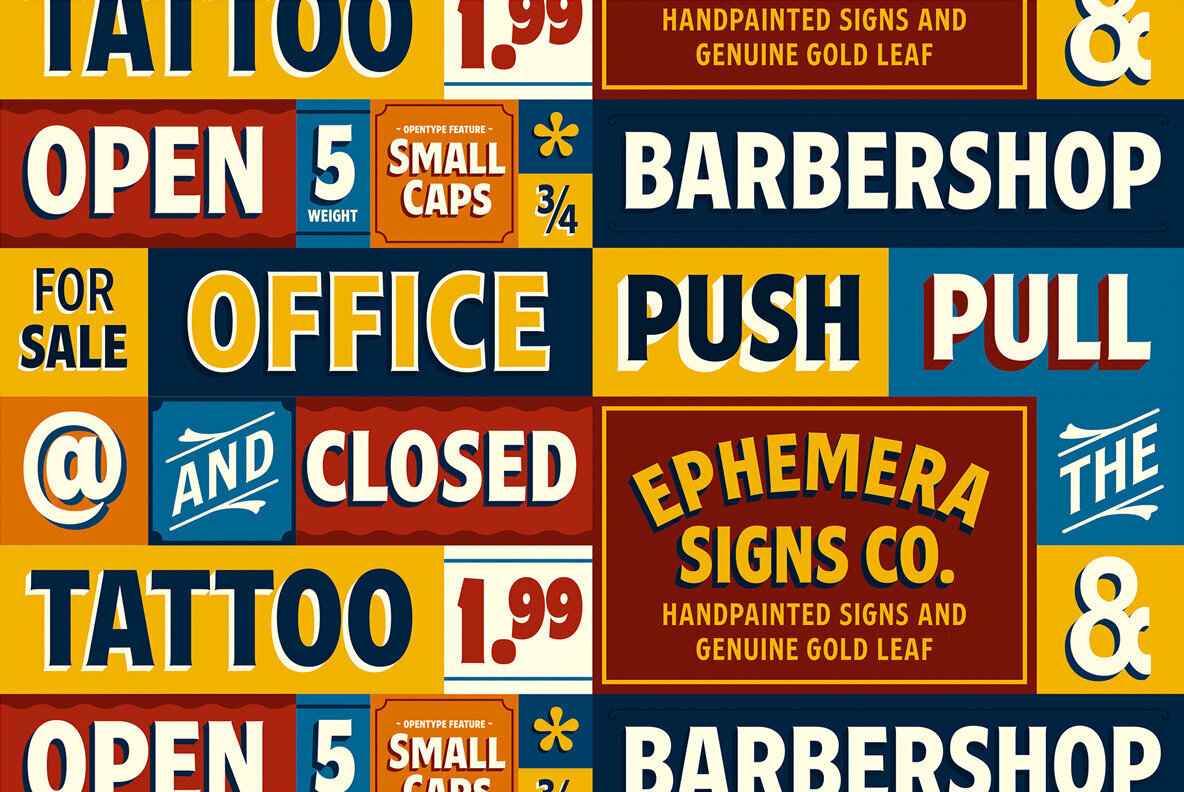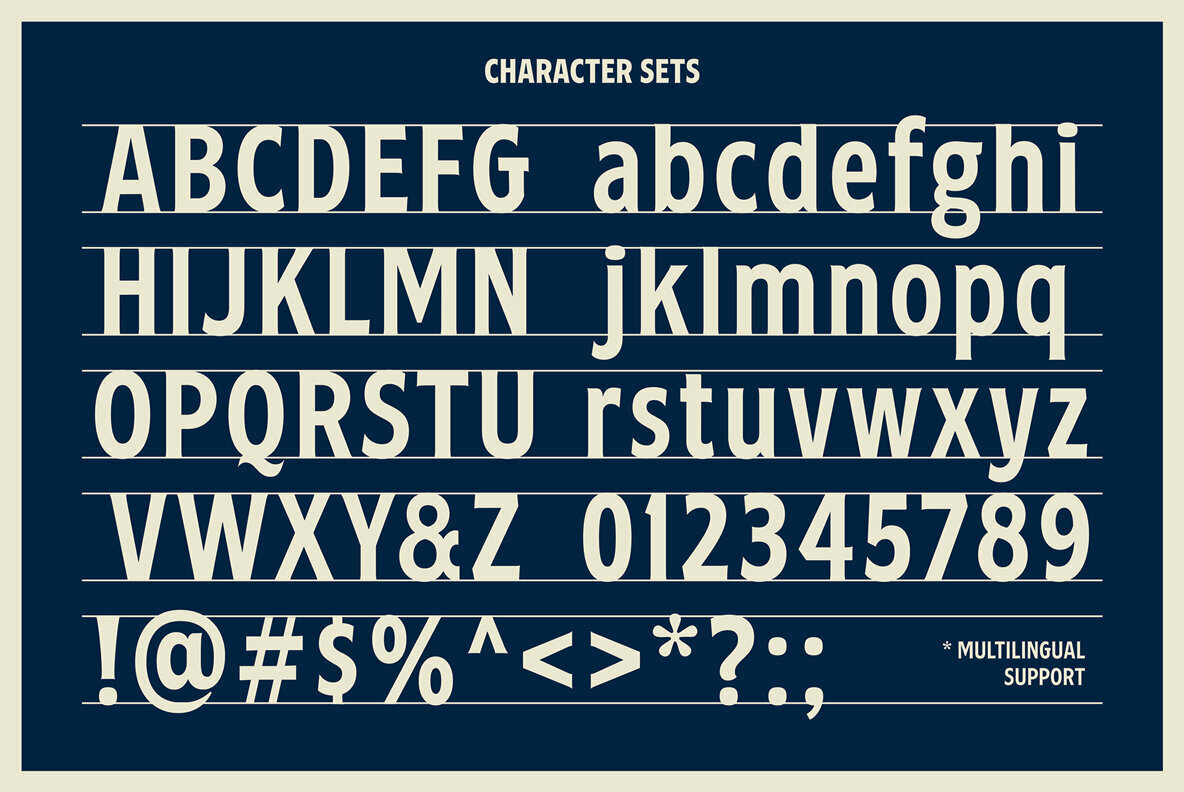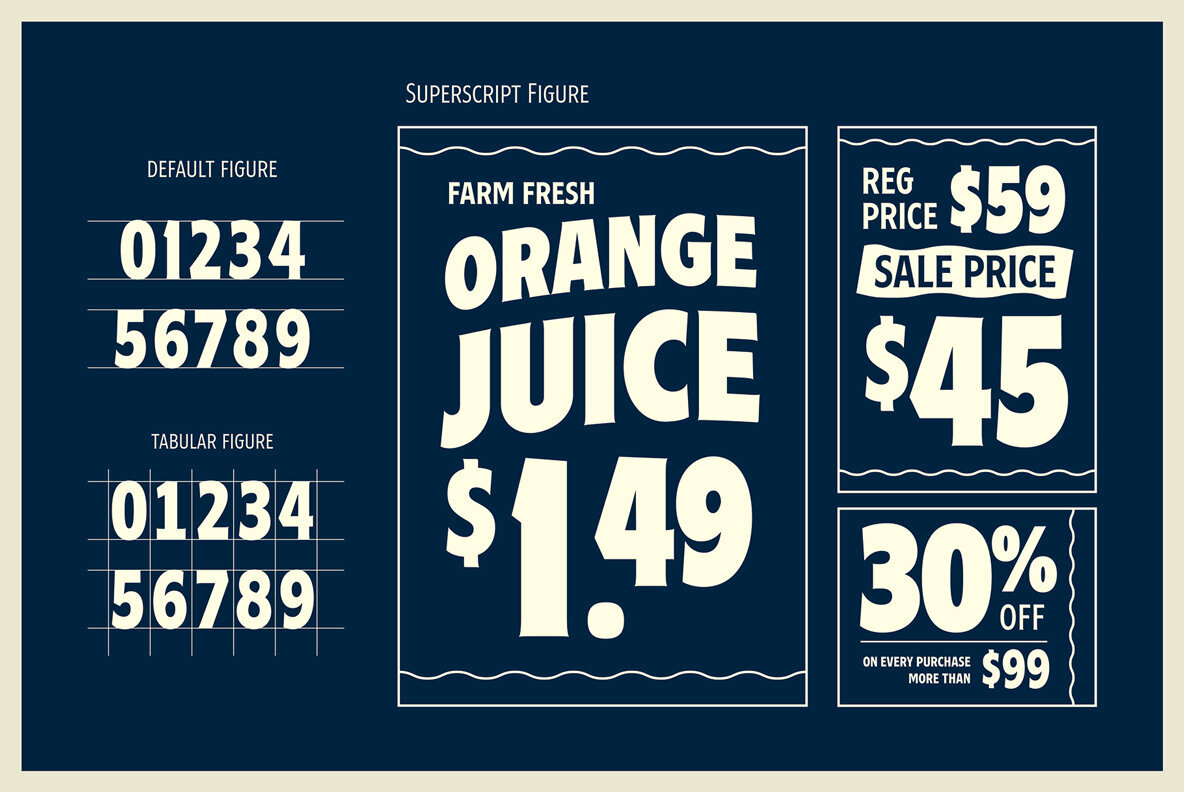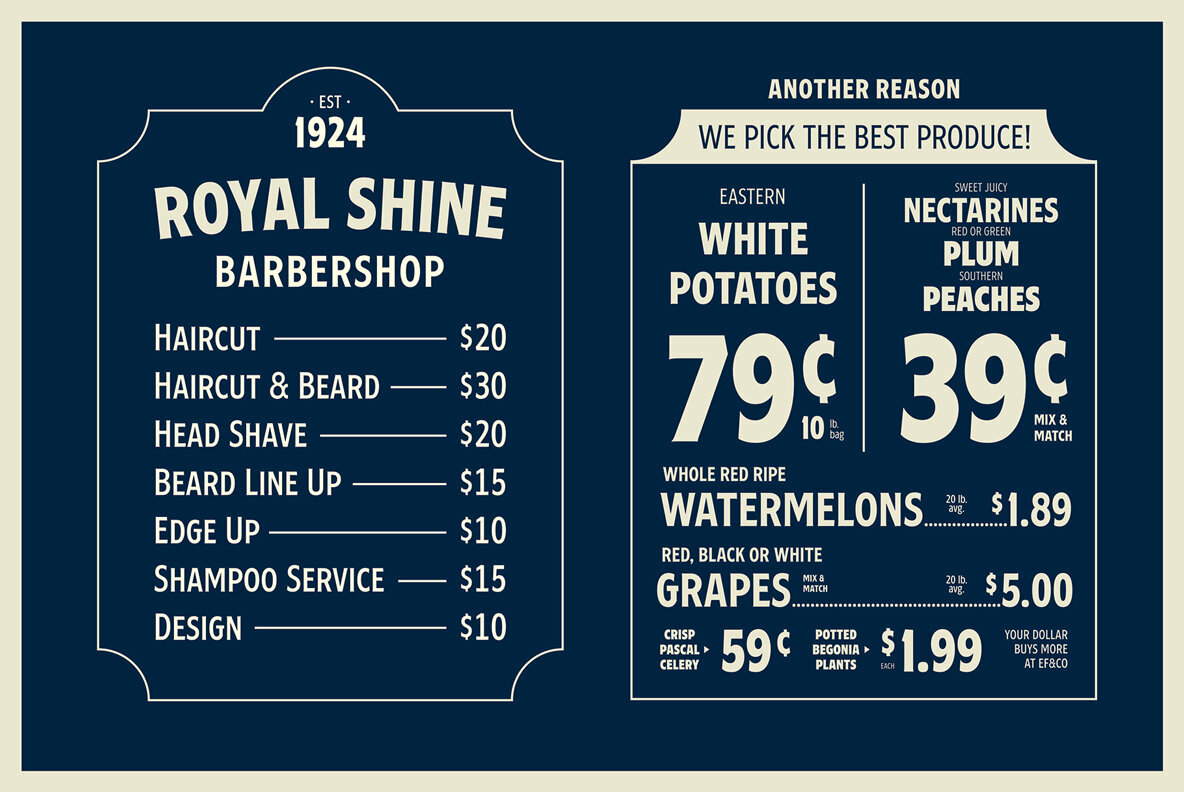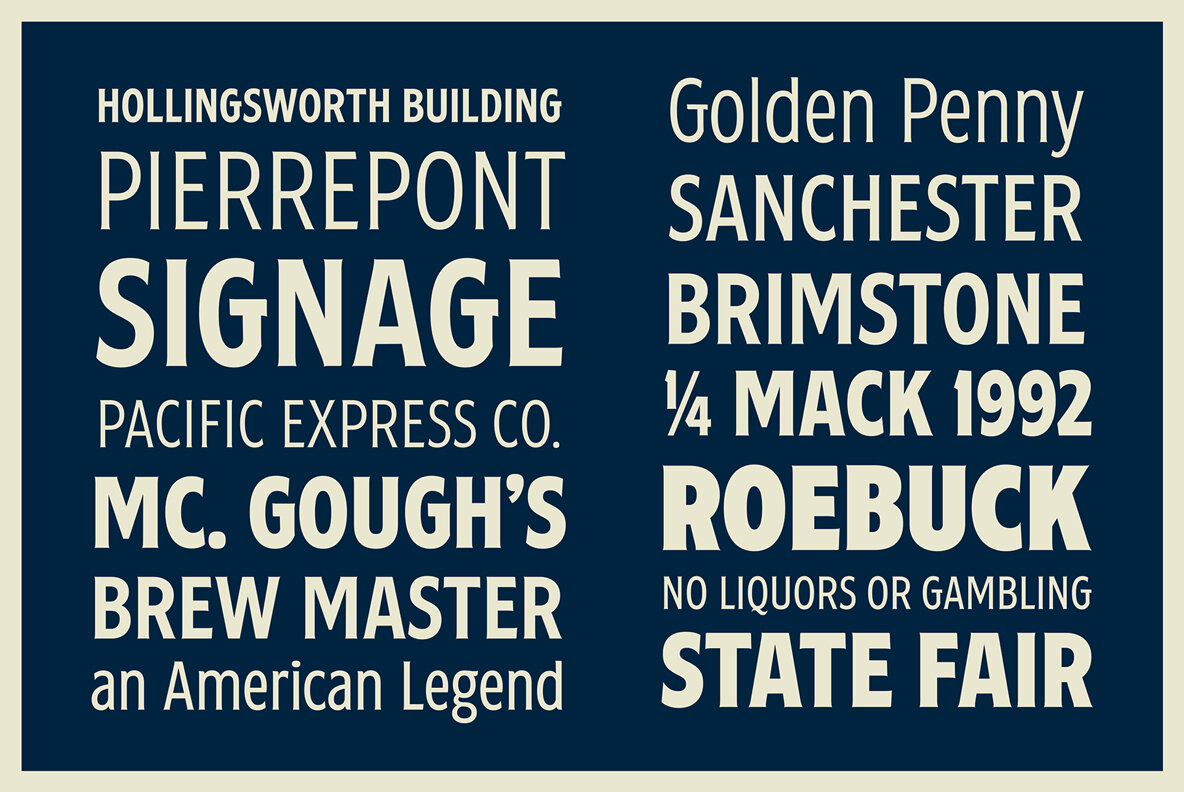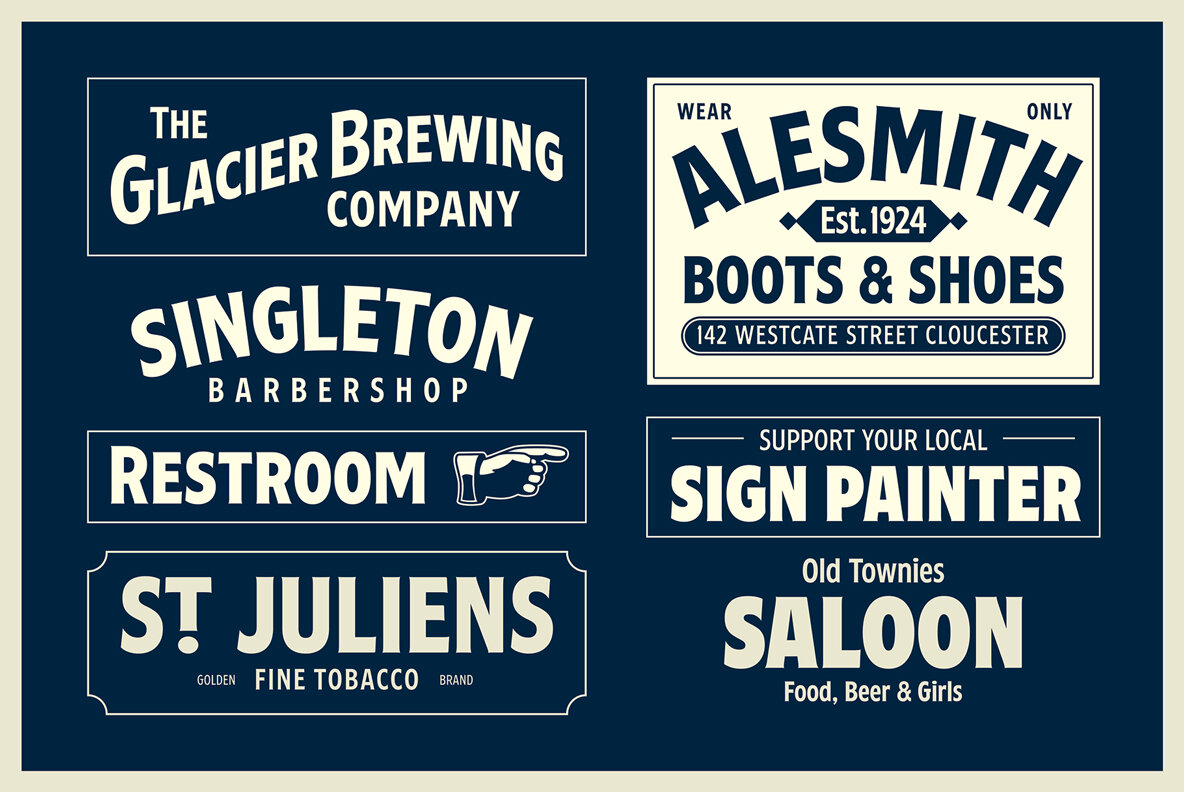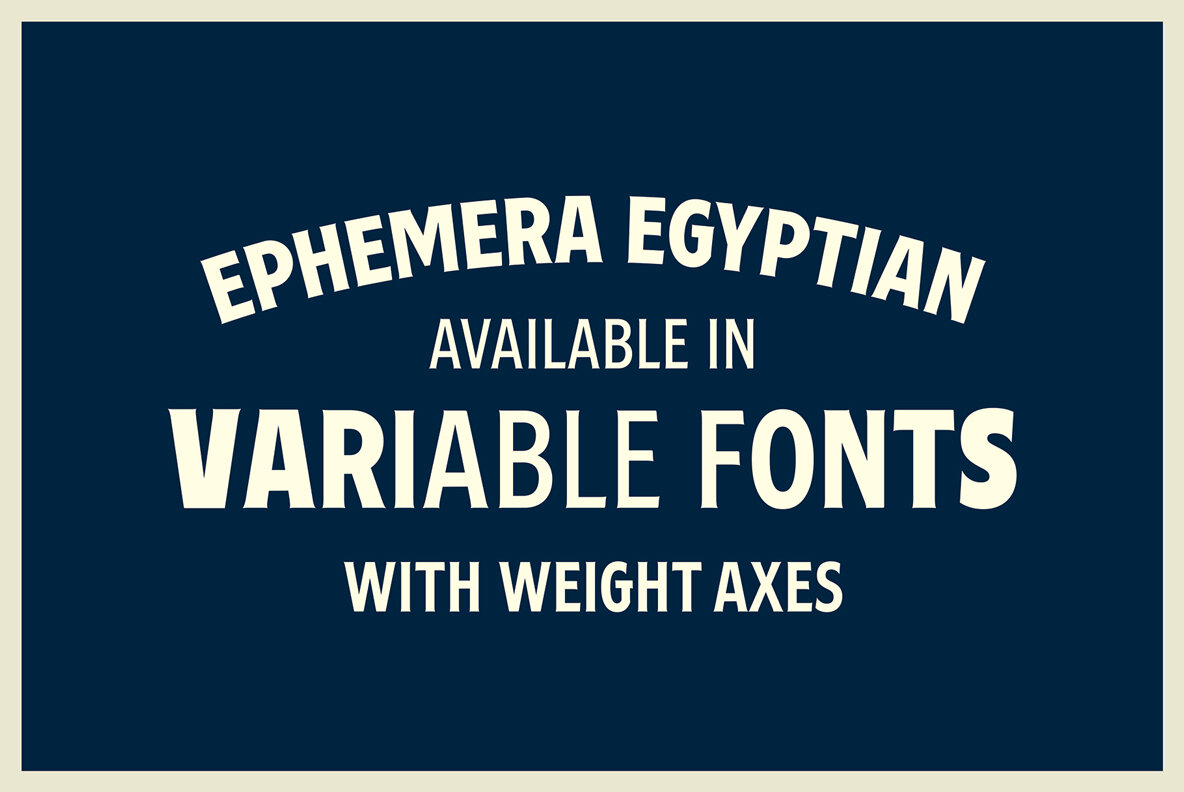
Ephemera Egyptian Font
Ephemera Egyptian is a typeface inspired from basic block lettering, widely used in art and craft of sign writing.
5 styles available from light to bold. and for the first time it is also available as variable fonts. One of the uniqueness of this font is the small spur on each stem, and the terminal, which intends to simulate an entry and end brush stroke.
OpenType features support such as Smallcaps, Tabular Figure, Superscript, and 2 alternate of ampersands.
This typeface was created for Display needs, such as headlines, signage, logotype, badges design, packaging, etc.